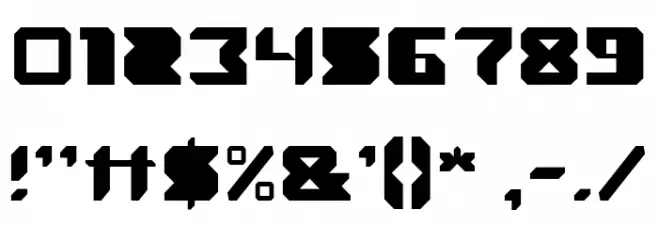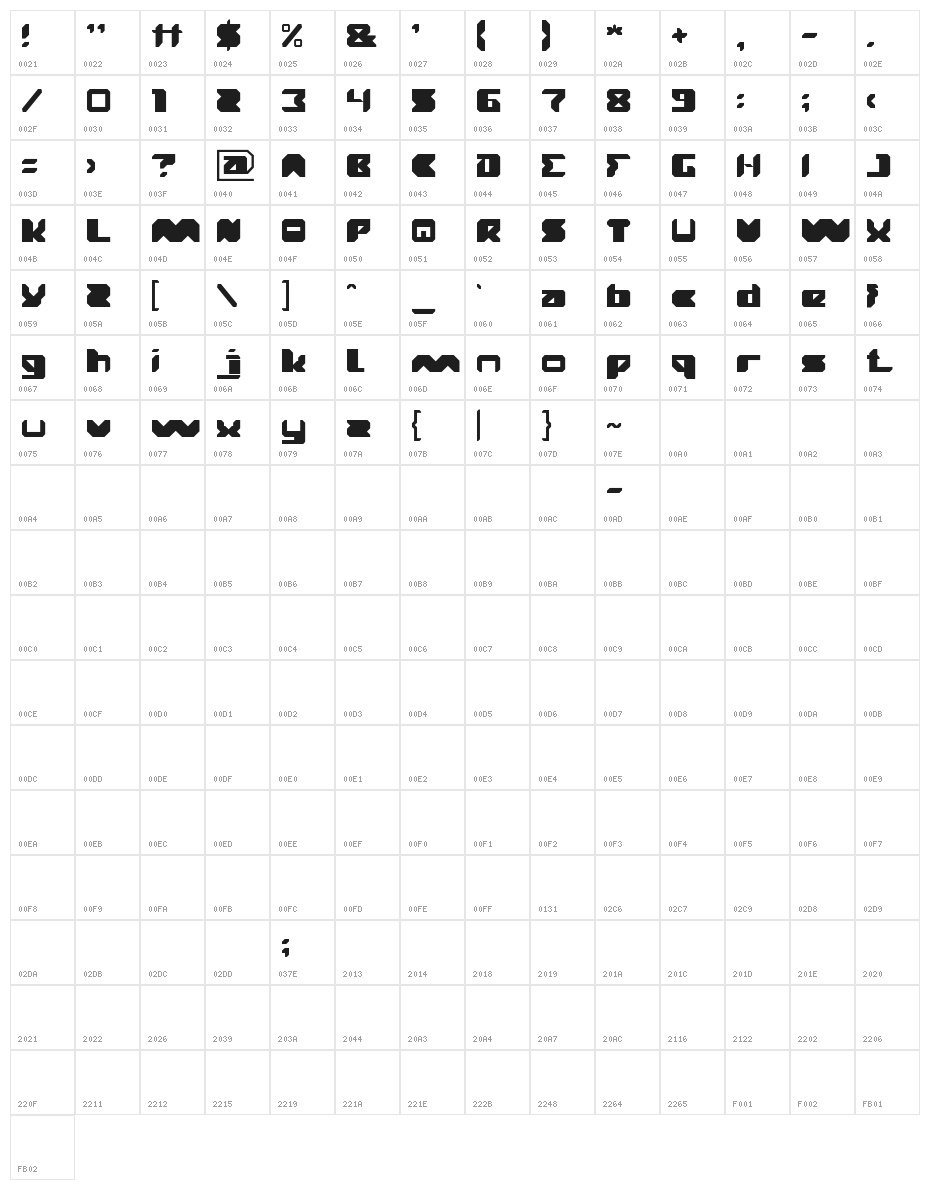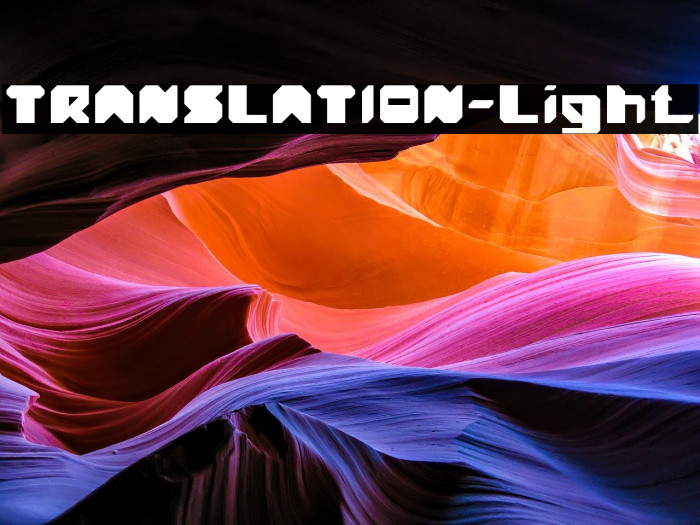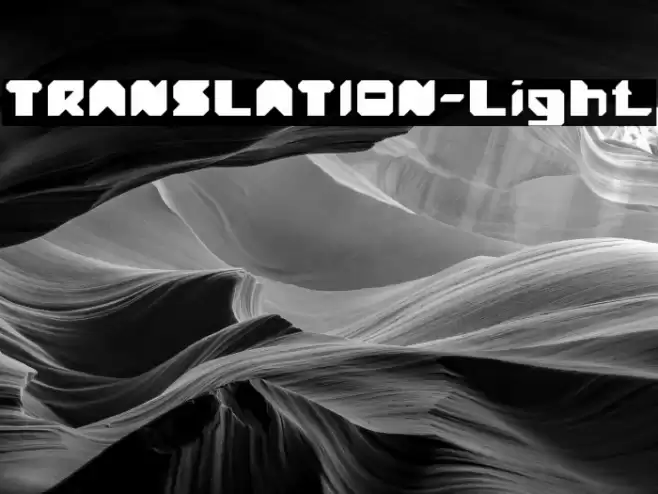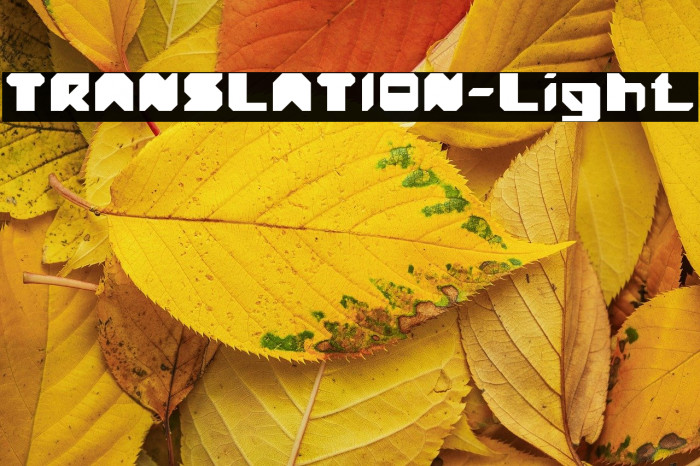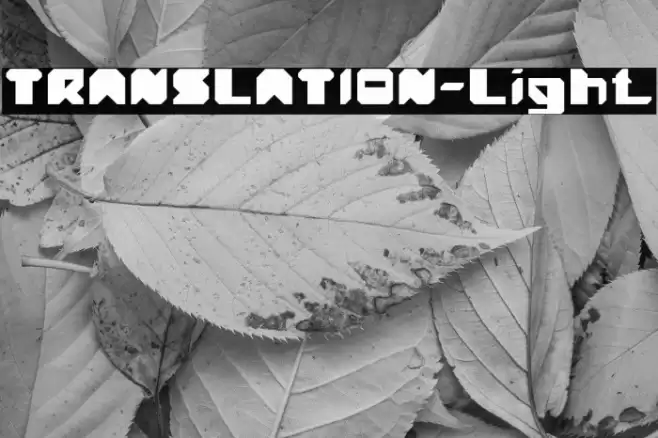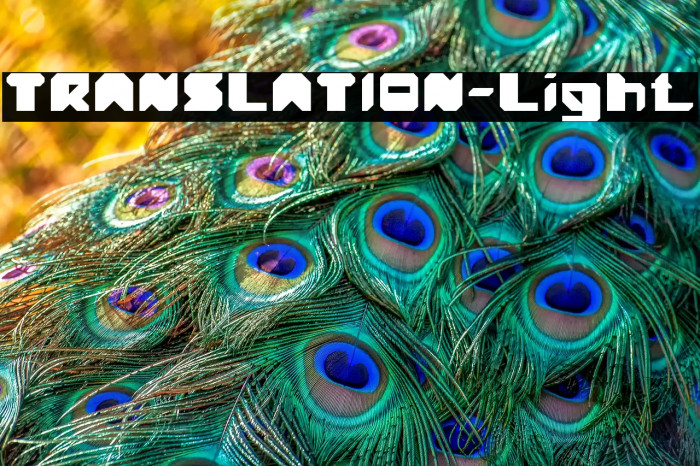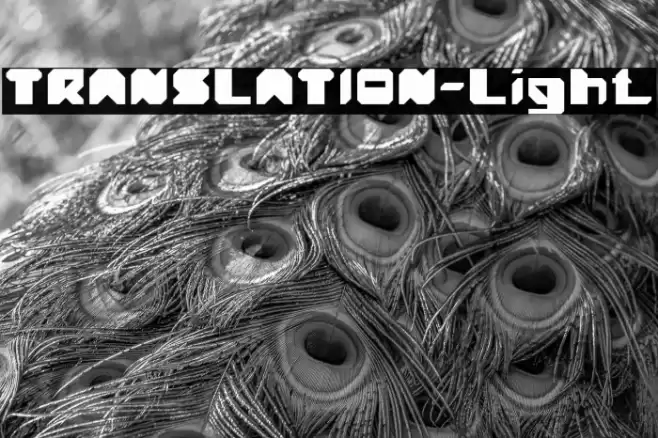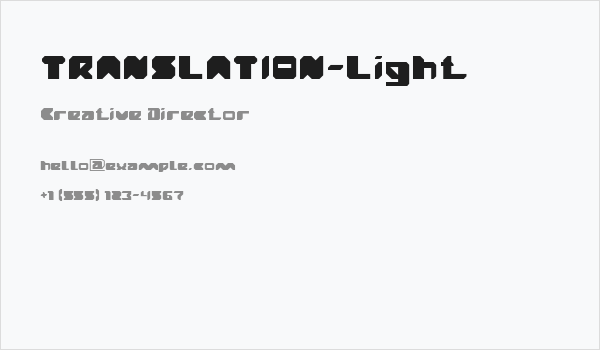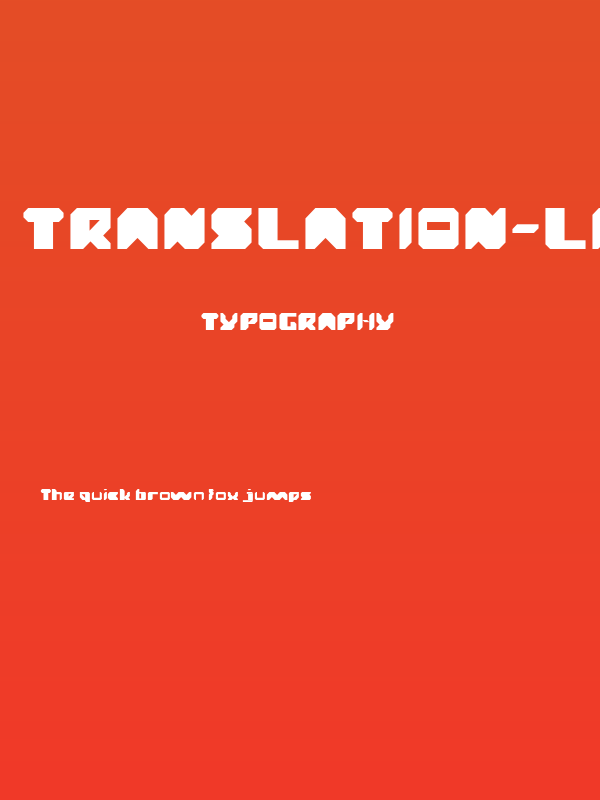
TRANSLATION-Light Description
This font features a bold, geometric design with sharp angles and a futuristic aesthetic. The characters are constructed with a blocky, stencil-like appearance, giving them a distinct and modern look. The uppercase and lowercase letters maintain a consistent style, with the lowercase slightly more compact. Numerals and special characters follow the same design principles, ensuring uniformity across the typeface. The font's unique style makes it stand out, ideal for projects that require a strong visual impact.